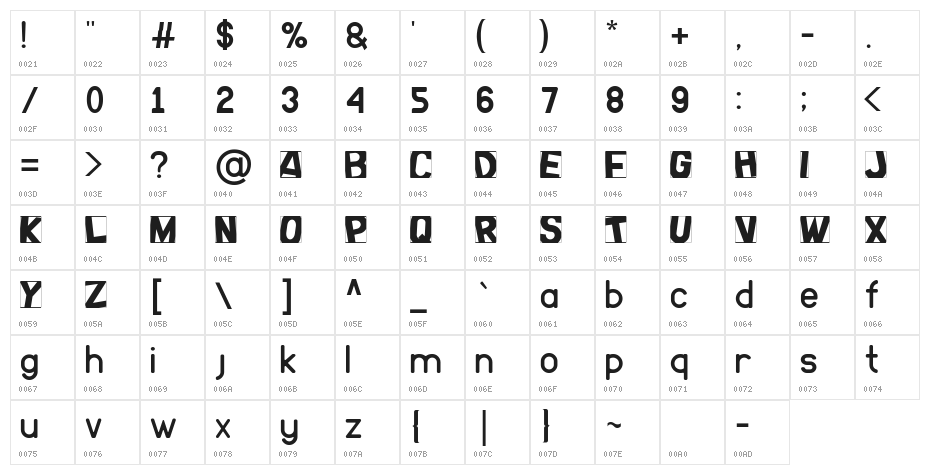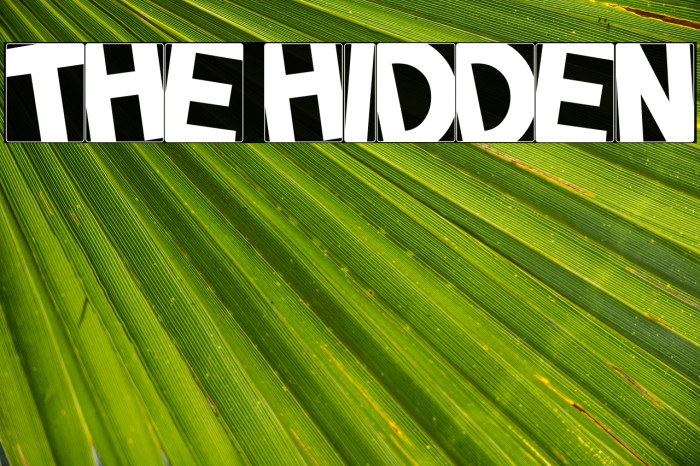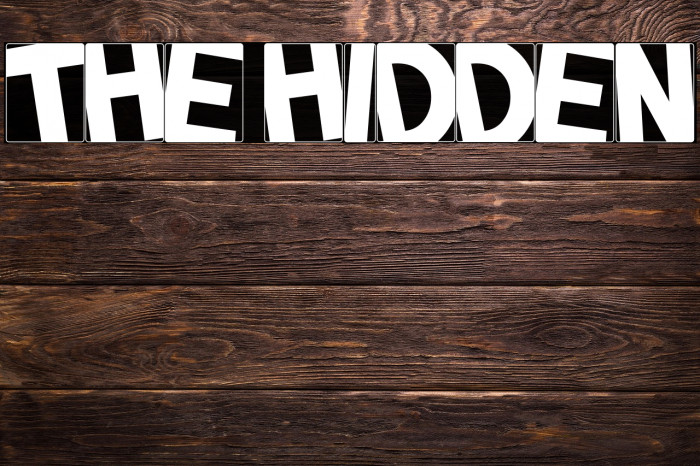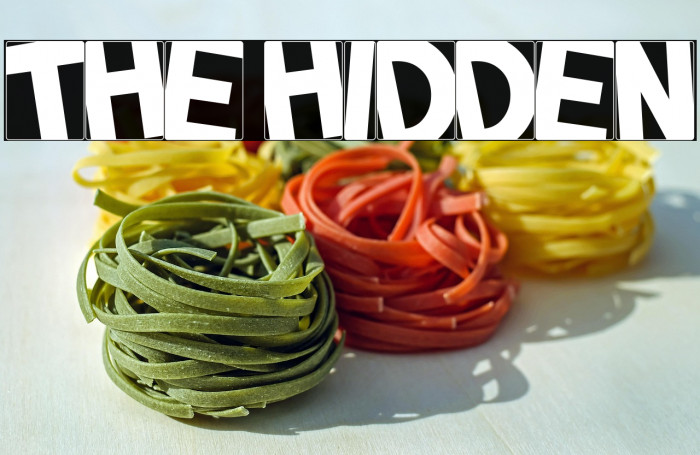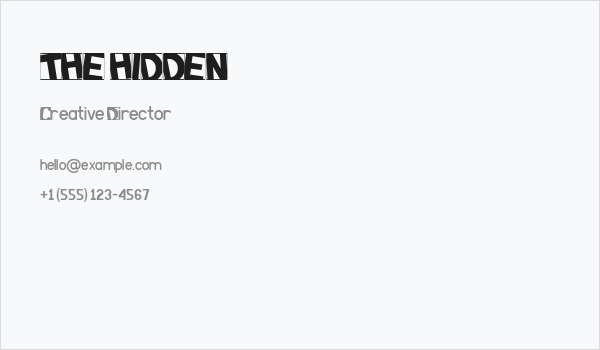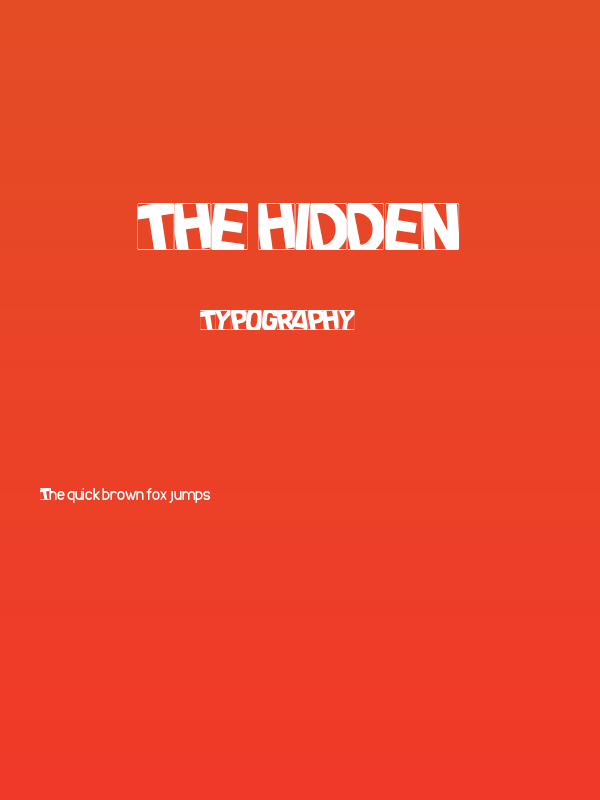
THE HIDDEN Font
THE HIDDEN Description
This font features a playful and bold design with a distinctively quirky style. The uppercase letters are characterized by their irregular shapes and varying widths, creating a dynamic and eye-catching appearance. The lowercase letters maintain a more uniform and rounded form, offering a softer contrast to the uppercase. The numerals are bold and consistent, ensuring readability. Special characters are included, maintaining the font's unique style. This font's overall design is both modern and whimsical, making it suitable for creative projects that require a touch of fun and individuality.
| Overall Style | Modern, Whimsical |
| Proposed Projects | Ideal for children's books, playful branding, posters, and creative digital content. |